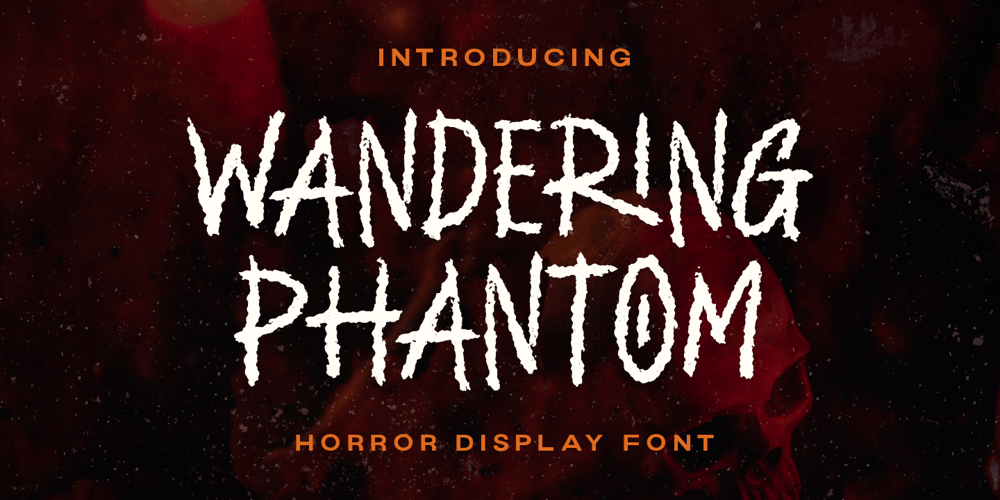
Wandering Phantom Font Family was designed by Hendry Juanda and published by Letterhend. Wandering Phantom contains 1 styles and family package options. Introducing Wandering Phantom, a font that beckons you into terror and fascination collide. Whether you’re evoking horror aesthetics or weaving a web of scary sophistication, Nightmare Glyph’s versatility knows no bounds.Features : Uppercase & lowercase Numbers and punctuation Alternates/Ligatures Multilingual PUA encoded